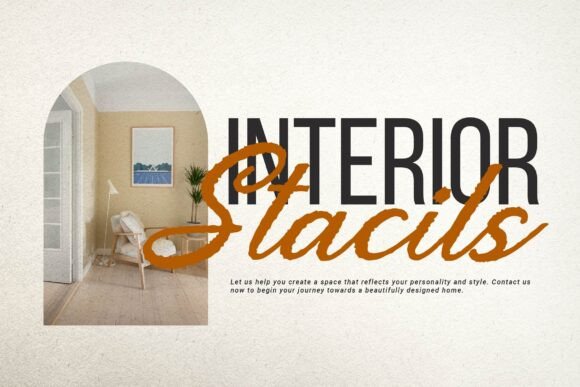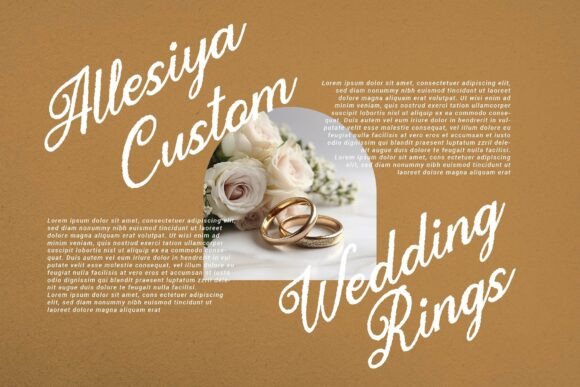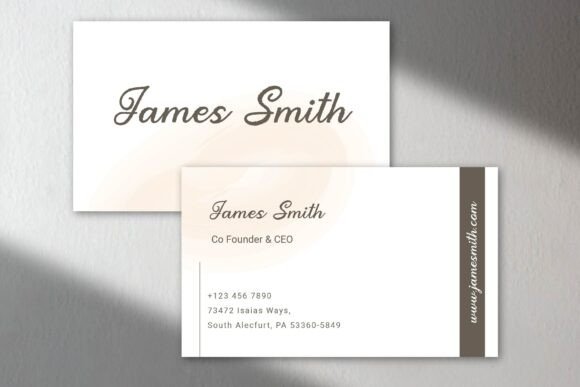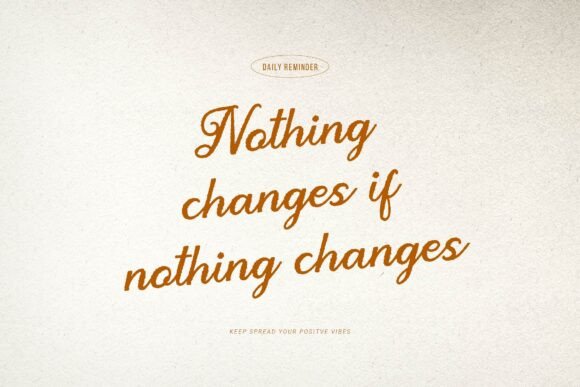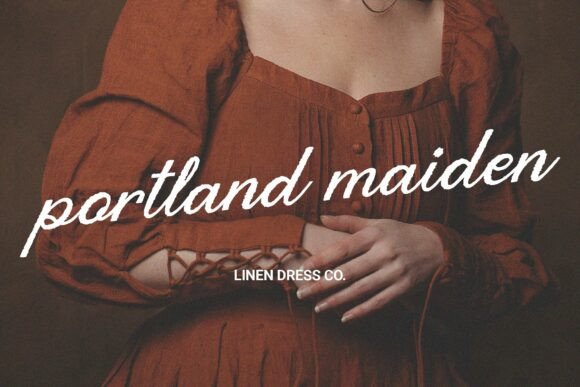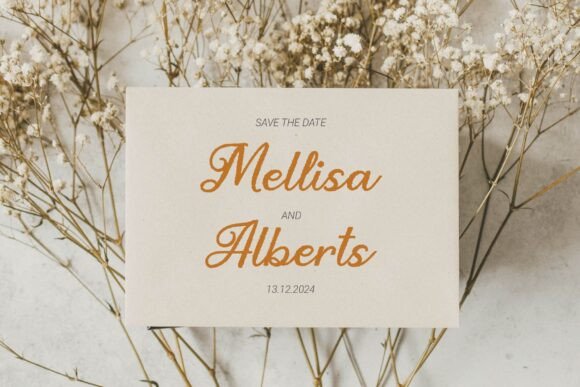
Introduction to Dyatorn Font
Dyatorn is a playful, handwritten font that looks like it was created with a brush.
Its casual style gives a personal and friendly feel, making it great for invitations, cards, and creative projects .
Key Features of Dyatorn Font
Why Choose Dyatorn Font?
Dyatorn Font offers exceptional quality and versatility, making it a valuable addition to your design toolkit. Whether you’re creating for personal projects or commercial use, Dyatorn Font delivers professional results.